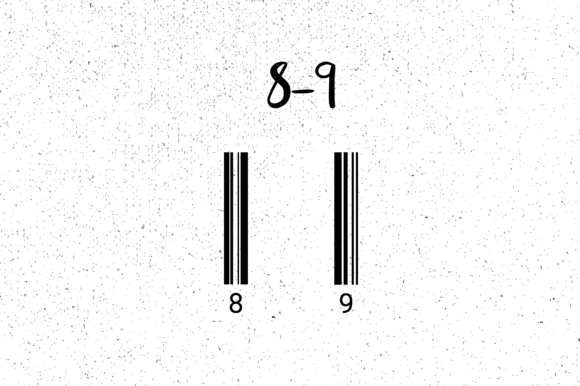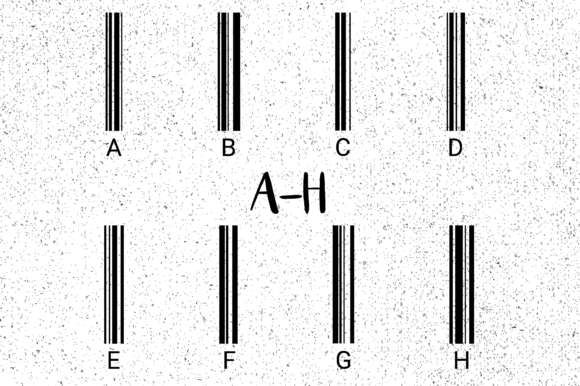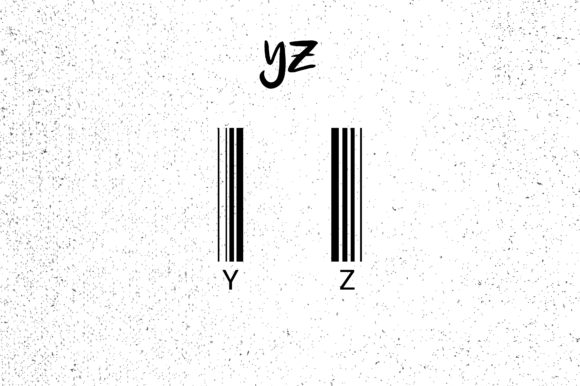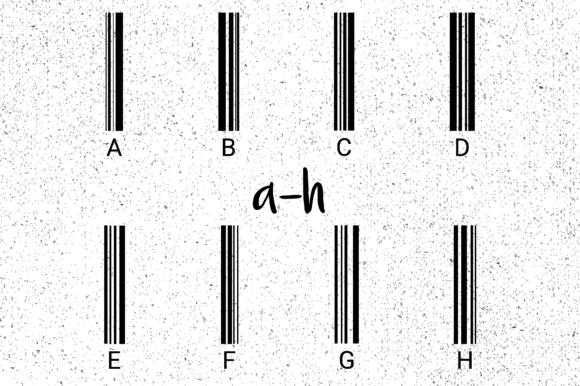
ABOUT BARCODE FONT
“Barcode” is a handy dingbat font that allows you to easily generate barcodes within your graphic software or office applications. By selecting the font and typing the corresponding numbers, you can quickly create barcodes without the need for external barcode generators or specialized software.
Having the “Barcode” font installed on your system can significantly accelerate the product design process, as you can generate barcodes on the fly without switching between different tools or applications.
This font is particularly useful for various purposes, such as inventory management, retail packaging, product labels, and more. By incorporating barcodes into your designs or documents, you can improve efficiency, accuracy, and streamline processes related to product identification and tracking.
Install the “Barcode” font and leverage its convenience to seamlessly integrate barcodes into your designs and office workflows. With its simplicity and functionality, this font can be a valuable asset for any project that requires barcode integration.